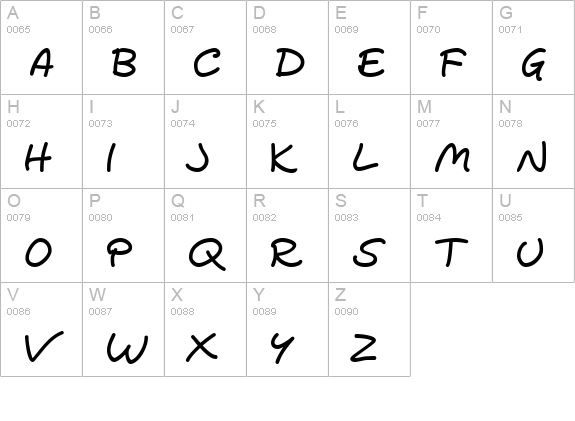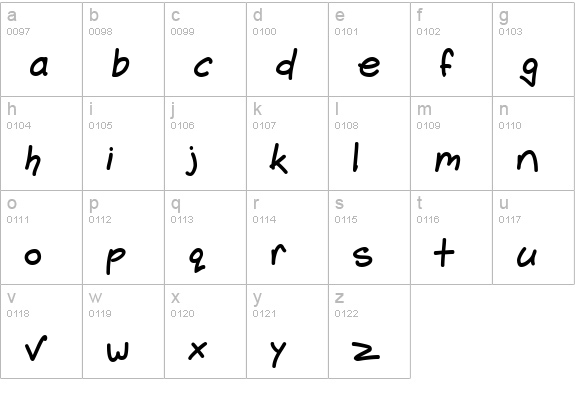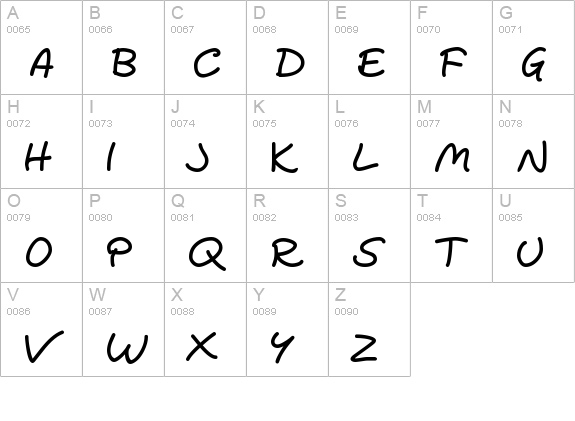
Gemelli Font Details
Gemelli font is a modern and elegant typeface that exudes sophistication and style. With its clean lines and graceful curves, Gemelli is perfect for adding a touch of class to any design project. Whether you're creating a logo, website, or printed material, this font is sure to make a statement. What sets Gemelli font apart is not only its timeless design but also the fact that it is available for free download at FontsMarket.com. This means that you can easily access this beautiful font and use it in your projects without any cost. With Gemelli font, you can elevate your designs and stand out from the crowd, all while enjoying the convenience of a free download.